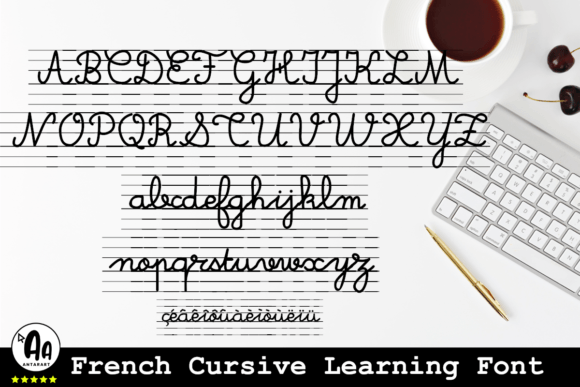
Introducing French Cursive Lined Font: A Handwritten Font for Engaging Learning Experiences
Are you a designer, crafter, or educator looking for a unique and engaging way to teach or learn French Cursive handwriting? Look no further! The French Cursive Lined Font is a handwritten font designed to help you create hundreds of worksheets using any software. This font is a great learning resource for those who want to learn or teach French Cursive handwriting in an enjoyable and interactive way.
What is French Cursive Handwriting?
French Cursive, also known as French Script, is a beautiful and elegant handwriting style that originated in France. It is characterized by its flowing connections between letters, making it a popular choice for calligraphy and handwriting enthusiasts. French Cursive handwriting is still widely used in France and other French-speaking countries, and is considered an essential skill for anyone interested in learning the language.
The Benefits of Using French Cursive Lined Font
The French Cursive Lined Font offers several benefits for designers, crafters, and educators. Here are a few:
- Create engaging worksheets: With the French Cursive Lined Font, you can create hundreds of worksheets for teaching or learning French Cursive handwriting. The font’s lined design makes it easy to create worksheets that are both fun and functional.
- Easy to use: The font is compatible with most software, making it easy to use for creating worksheets, posters, and other materials.
- Interactive learning: The French Cursive Lined Font allows learners to practice their handwriting skills in an interactive way, making the learning process more enjoyable and effective.
- Customizable: The font can be customized to suit your needs, allowing you to create materials that fit your specific teaching or learning style.
Here are a few tips for designers and crafters who want to use the French Cursive Lined Font:
- Experiment with different font sizes and styles: The French Cursive Lined Font comes in a range of font sizes and styles. Experiment with different combinations to create unique and engaging materials.
- Add illustrations and graphics: Add illustrations and graphics to your worksheets to make them more visually appealing and engaging.
- Use the font for other projects: The French Cursive Lined Font can be used for a range of projects beyond worksheets, such as creating posters, signs, and other materials.
| Font Name | French Cursive Lined Font |
| Author | AntarArt |
The French Cursive Lined Font is a valuable resource for designers, crafters, and educators who want to create engaging and interactive materials for teaching or learning French Cursive handwriting. With its ease of use, customizability, and range of applications, this font is sure to become a favorite among anyone interested in French Cursive handwriting.